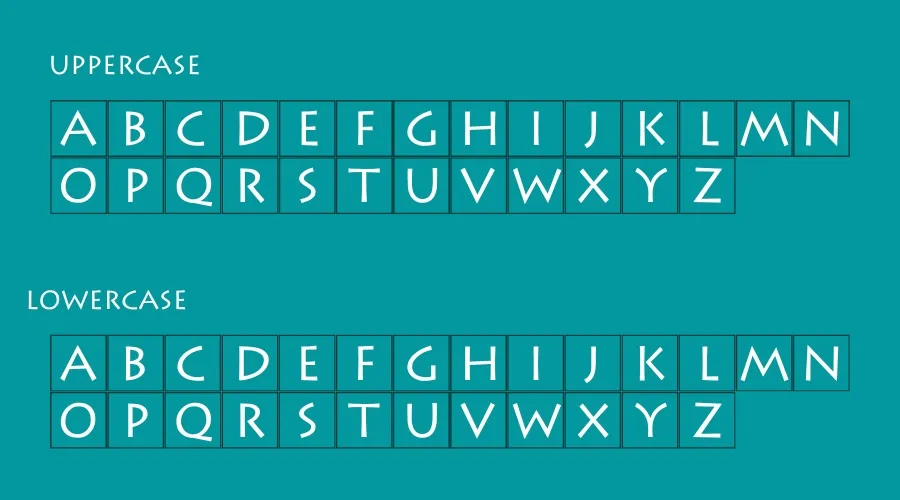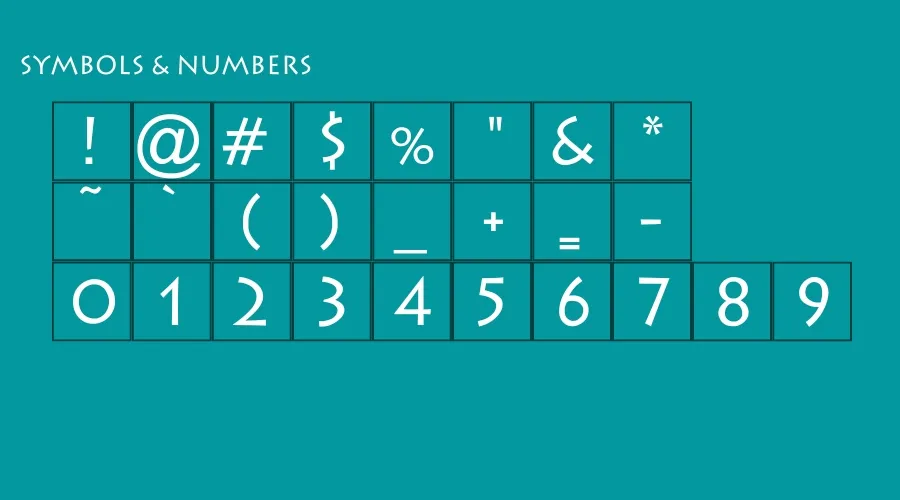
Liste Font
About Liste Font
The Liste font is a simple and fun typeface that is totally free on our website. This clean and modern font is perfect for all logos, branding, social media, and crafty DIY plan.
This typeface has more than once been used in film posters, emblems, and photoshop designs, and it is also a popular choice for designers who want to create designs related to regulations.
Suitable for logo designs, this beautiful typeface features fancy-style letters. This is an excellent choice for gaming logos and video titles. Many types of stylish logo designs can be created using this unique typeface.
By pairing this font with your designs, you can create imaginary and wonderful designs. In addition to creating an eye-catching outcome, it also gives your project an interesting appearance.
A signature, an article, a quote, and a social media post can be designed using this typeface. Also useful for post-descriptions and other design projects.
Style Cartoon
• Liste Regular